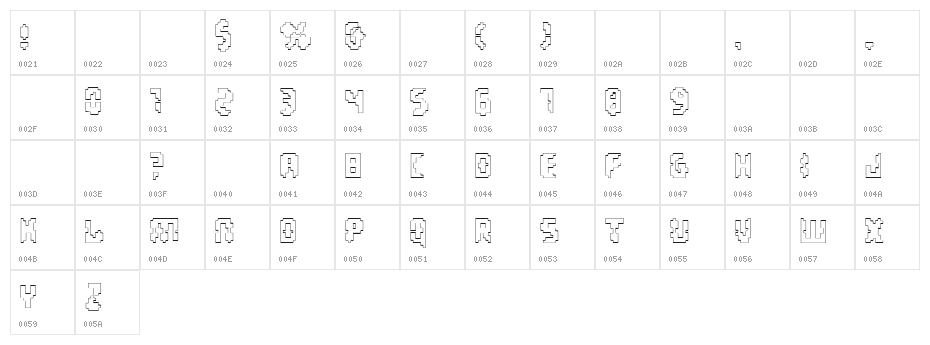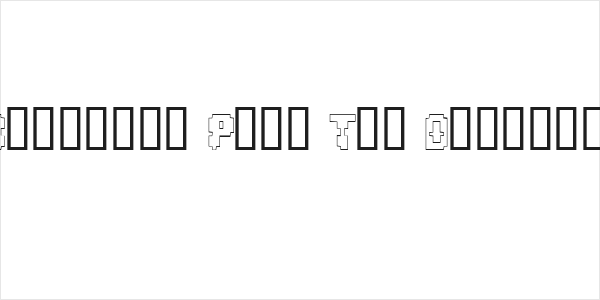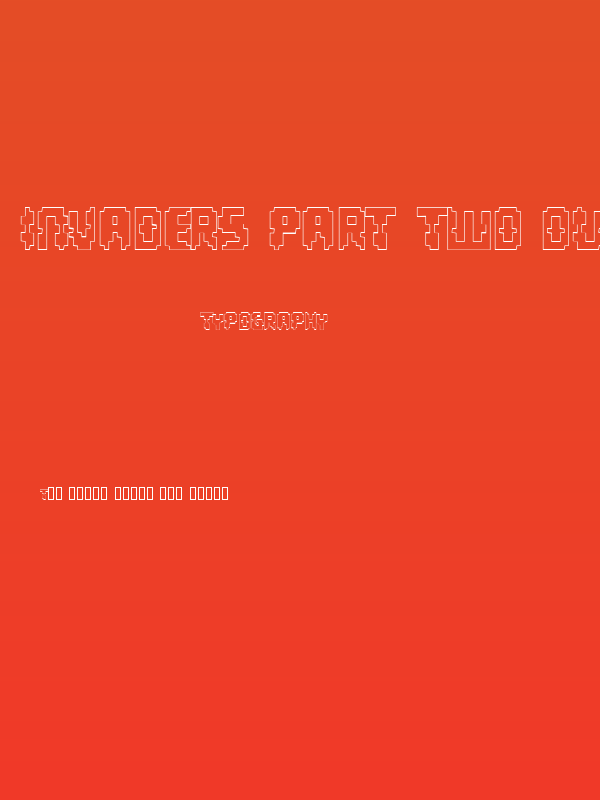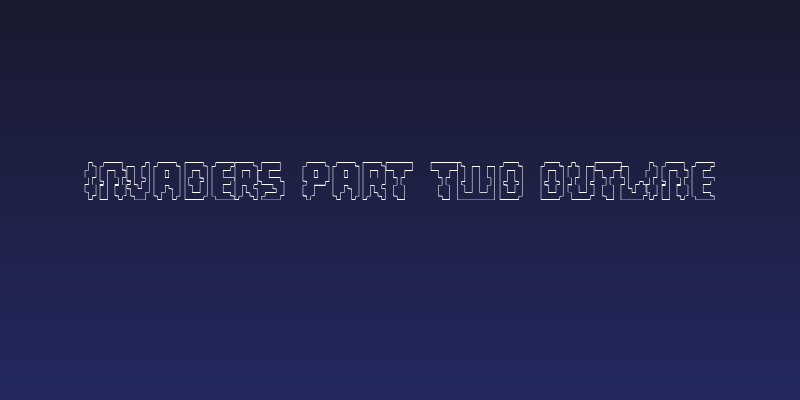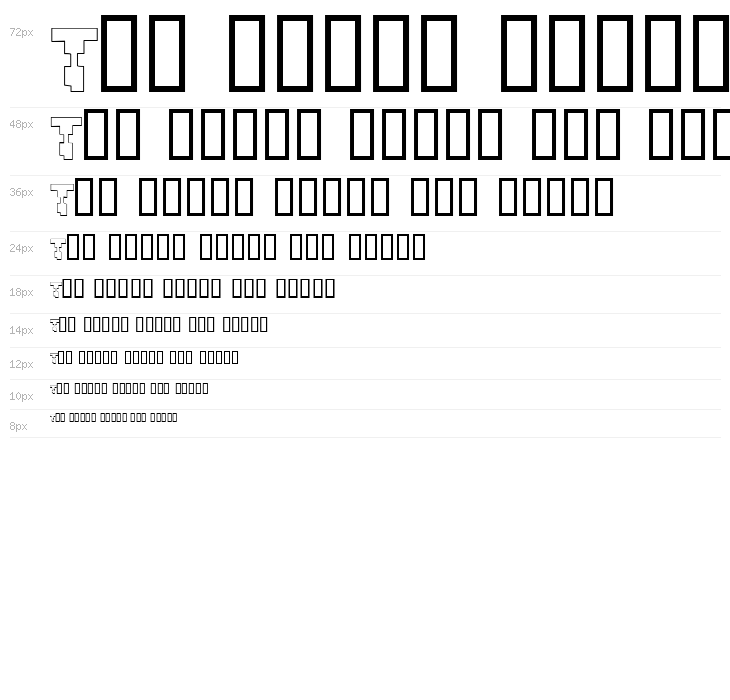
Invaders Part Two Outline Font
Invaders Part Two Outline Description
This font features a unique, pixelated outline style reminiscent of retro video games. Each character is composed of blocky, angular shapes that create a distinct, futuristic aesthetic. The uppercase and lowercase letters maintain a consistent design, emphasizing a digital, tech-inspired look. Numbers and special characters follow the same geometric pattern, ensuring uniformity across the font. The outline effect adds a layer of depth, making the characters stand out while maintaining a minimalist approach. This font is ideal for projects that aim to evoke nostalgia for classic arcade games or convey a modern, digital theme.
| Overall Style | Retro, Futuristic |
| Proposed Projects | Ideal for video game designs, tech-themed posters, digital art projects, and retro-inspired branding. |